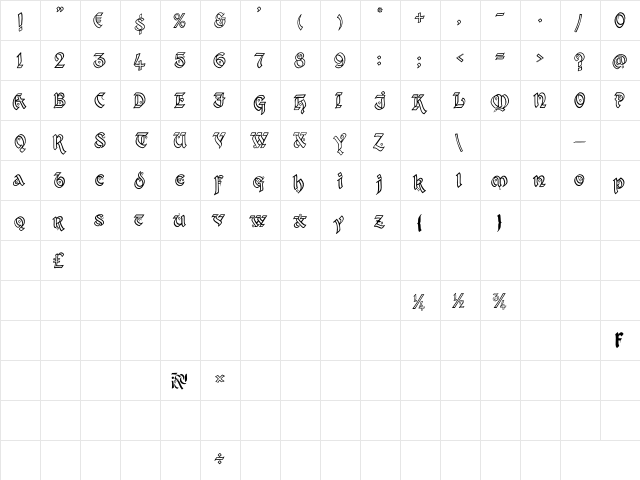
Kingthings Xander Outline Regular
| Designer | Kevin King: Kingthings 2002 |
Design Context for Kingthings Xander Outline Typeface
Kingthings Xander Outline brings ornamental detail and strong personality to headlines and identities, where visual impact matters more than quiet functionality. Its slender proportions lend an understated elegance to any composition.
Font Pairing: Pair with a clean neutral sans-serif for body copy to let Kingthings Xander Outline's character lead without overwhelming the composition.
Pro Tip: Use Kingthings Xander Outline exclusively at display sizes — it was designed to be seen, not read at length. Let a neutral companion handle body copy.